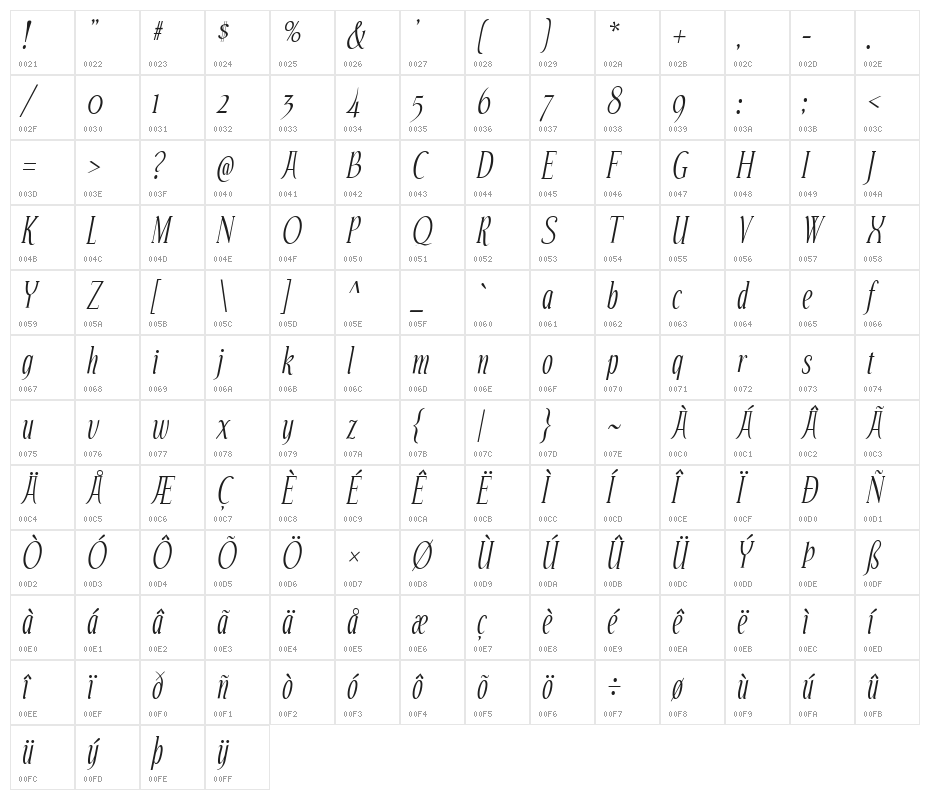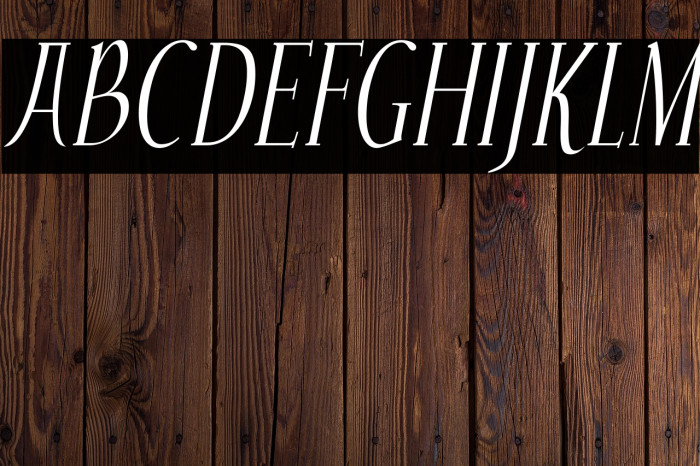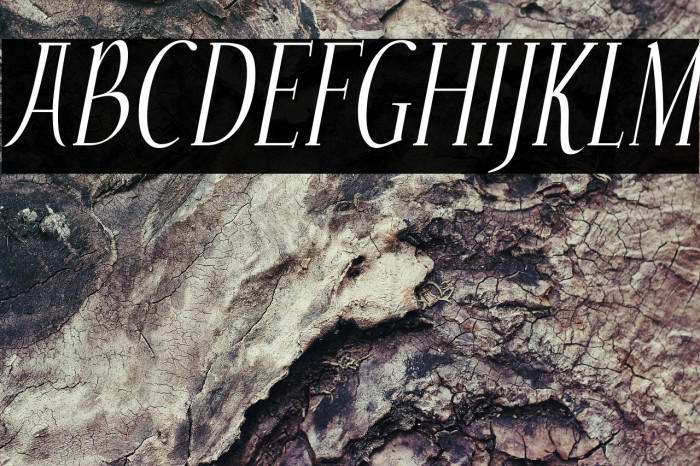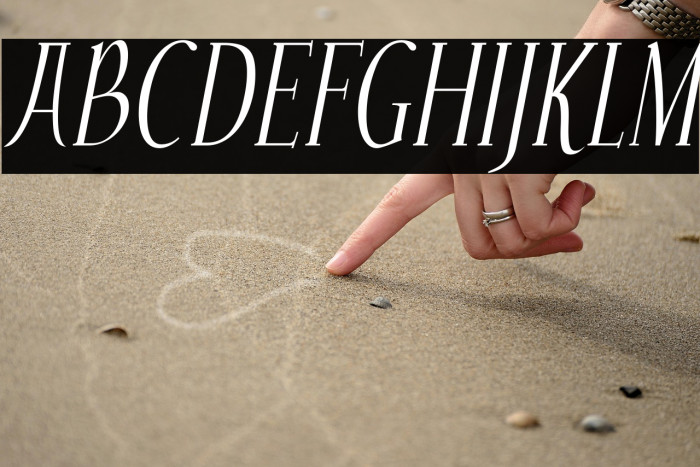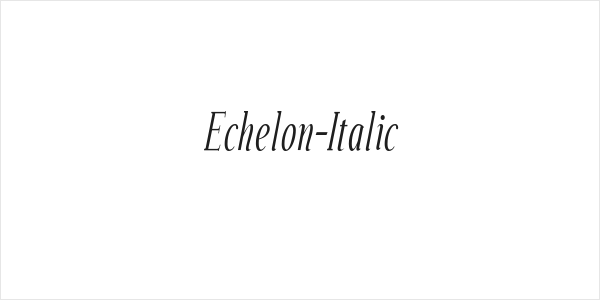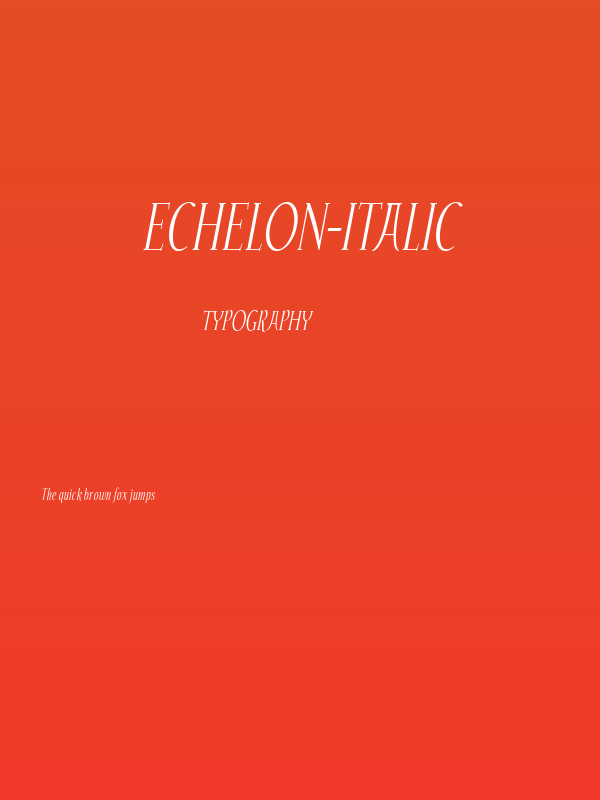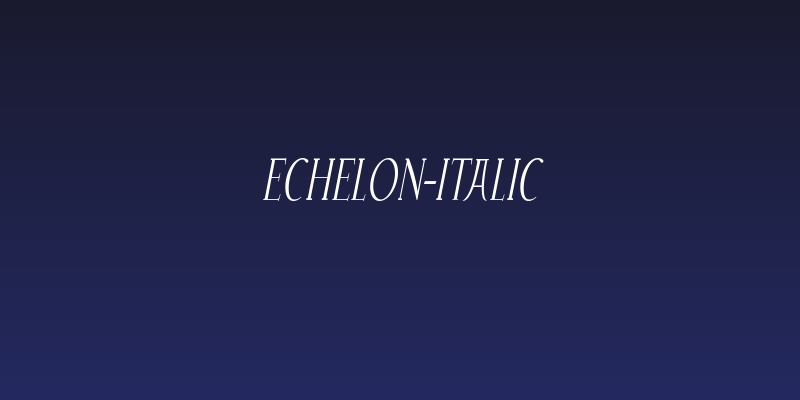
Echelon-Italic Font
Echelon-Italic Description
This elegant typeface features a sophisticated italic style with a distinct slant, giving it a dynamic and fluid appearance. The characters are elongated with a slight curvature, adding a sense of movement and grace. The strokes are moderately thick, providing a balanced contrast that enhances readability while maintaining an artistic flair. The uppercase letters are tall and commanding, while the lowercase letters maintain a consistent flow, making it suitable for both formal and creative applications. The numerals and special characters are designed to complement the overall style, ensuring uniformity across all text elements.
| Proposed Projects | Ideal for wedding invitations, luxury branding, editorial design, and elegant signage. |